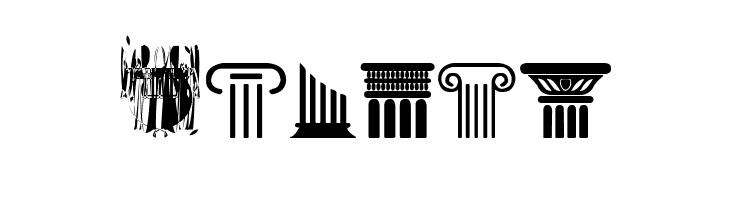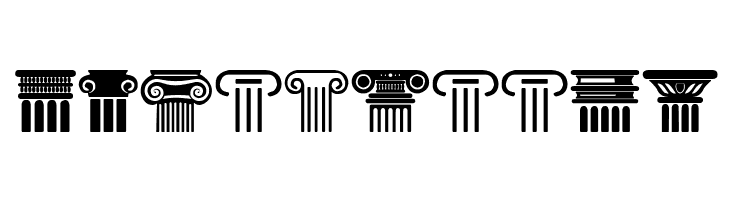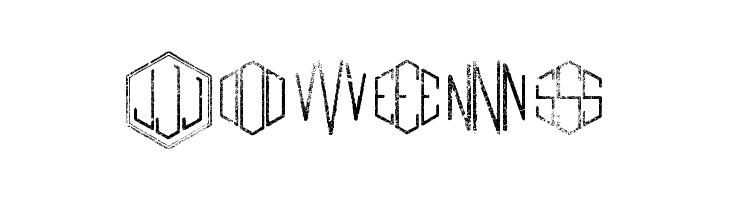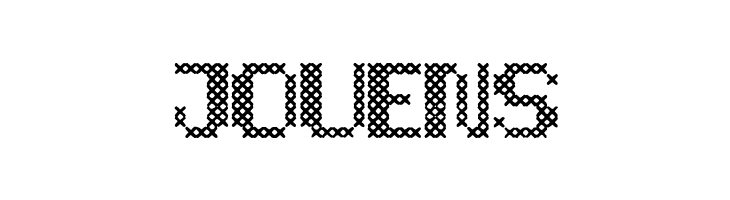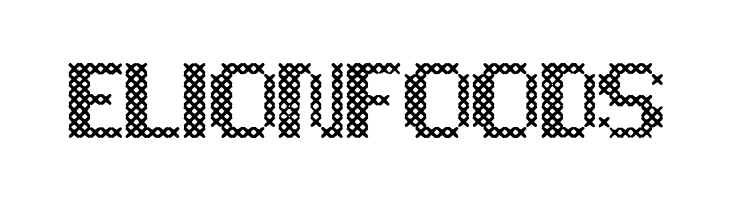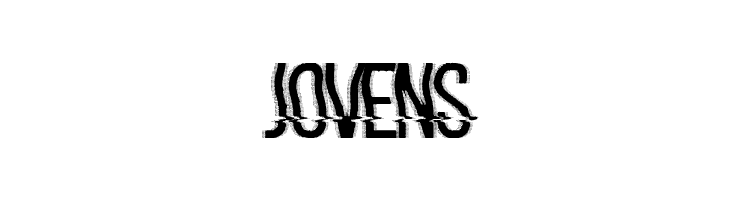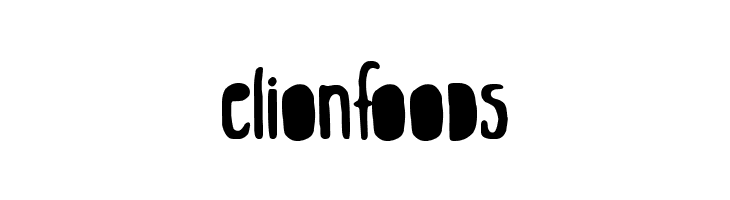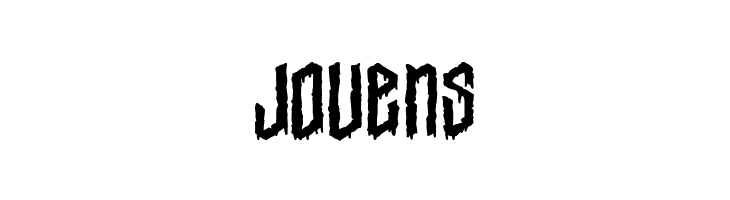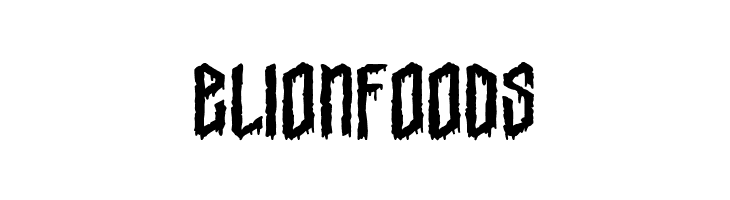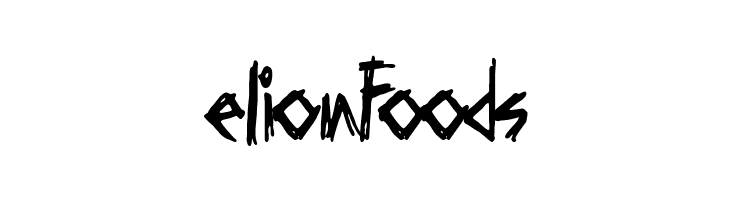
• Gothic Notausgang
A bold, ornate Gothic font with intricate details and a historical feel.
• Gothic Panceta
A bold, intricate Gothic script with elaborate flourishes and sharp angles.
• Gothic Punk
A bold Gothic-Punk font with intricate, ornate letterforms and a rebellious aesthetic.
• Gothic Vendetta
A bold, jagged font with a rugged, hand-carved appearance.
• Gothic War
A bold, Gothic-style font with sharp, angular lines and intricate detailing.
• Gothic Winter
A Gothic font with snow-themed accents, perfect for winter designs.
• Gothicus Vulgaris
Ornate blackletter font with bold, angular forms and medieval character.
• Government of poo
Bold stencil sans-serif with industrial, utilitarian style.
• Gracita Morales
A playful, bold, hand-drawn font with rounded characters.
• Graffiti City
A bold, graffiti-inspired font with a dynamic and urban style.
• Graffiti Tags
A dynamic and expressive graffiti-style font with exaggerated curves and sharp angles.
• Gramitos
A geometric font with hexagonal frames and a futuristic, industrial style.
• Grandma is a Punk
A bold, decorative font with a punk-inspired cross pattern.
• Grandma Rules!
A decorative font with a cross-stitch embroidery style.
• Graphic Dictatorship
A bold, decorative font with thick outlines and hollow interiors, perfect for striking headlines.
• Graphic Disaster
Hand-drawn, rounded sans-serif with playful character.
• Graphic Lady
A bold, hand-drawn font with a unique and artistic style.
• GRAPHIC PSYCHOPATHY
A chaotic, edgy font with jagged, rough edges and irregular strokes.
• Graphic Stepfather
A bold, distressed 3D font with a vintage halftone texture.
• GRASS
A bold, angular font with a modern, edgy style.
• Greek Column
Display font with Greek column illustrations as characters.